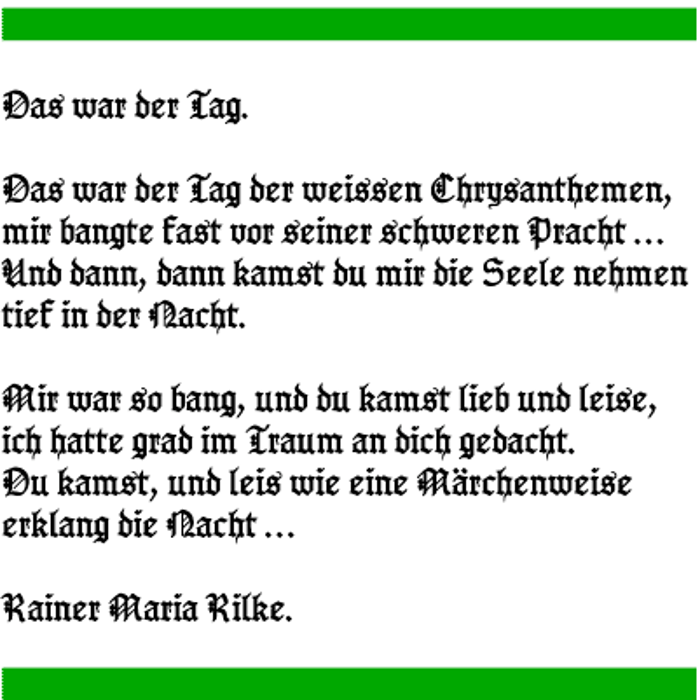
Gotenborg Fraktur Font
None of the Germans would have written the poem this way! Blackletters need to have been studied carefully as to the rules to be applied.